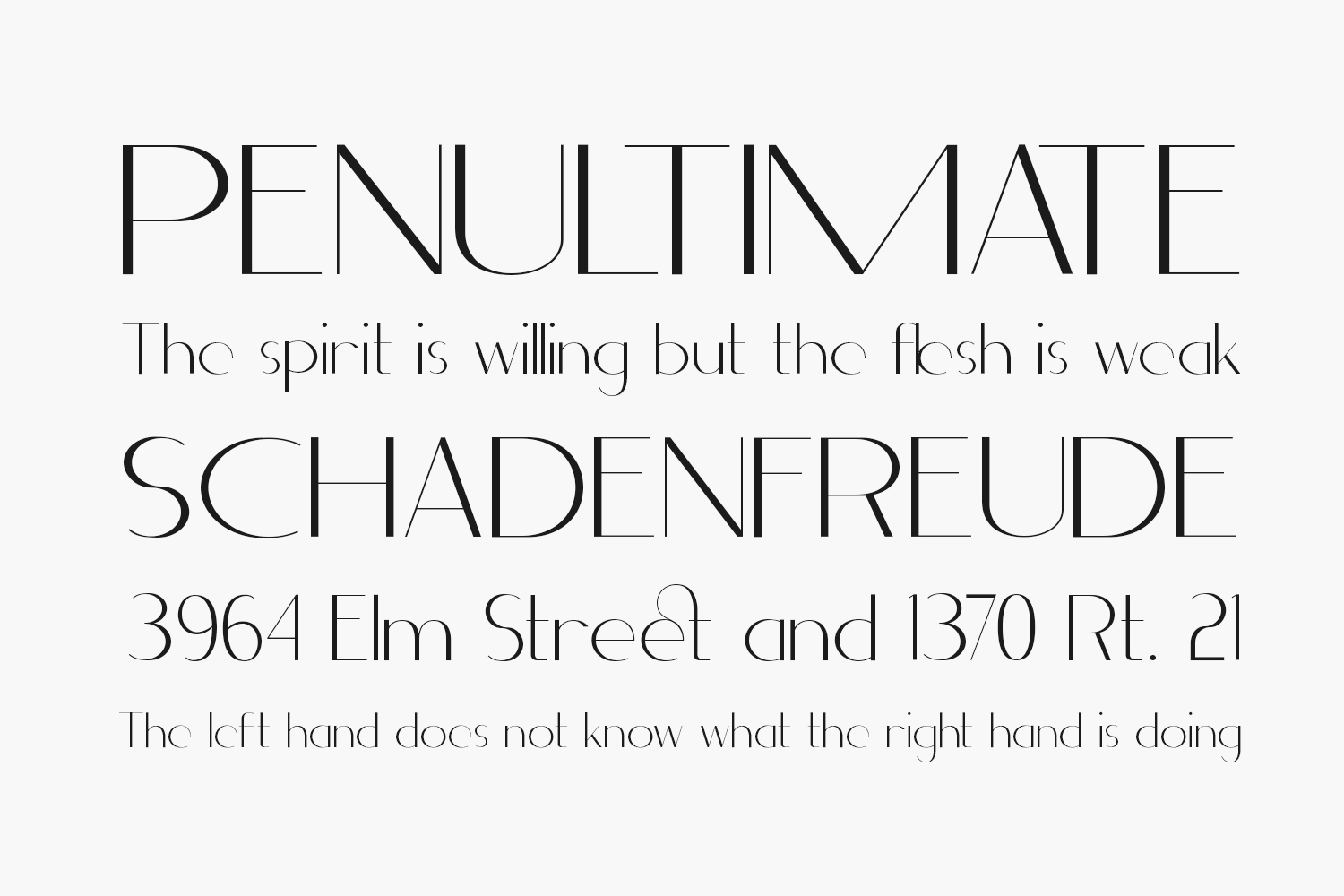
Avoda Free Font is an elegant sans serif font, that features a very delicate and classy look. Not too thin and not too thick, balanced and varied, this font was designed to enhance the beauty of your projects. Avoda Free Font was designed by Typefactoryco and is free for personal use only. Please purchase the full version for commercial use.